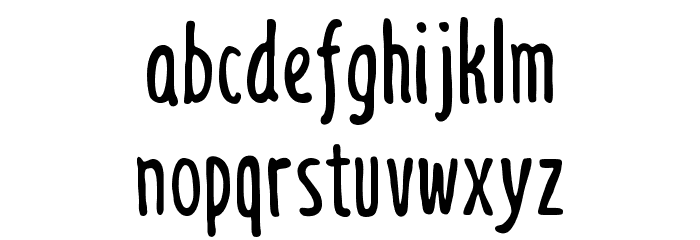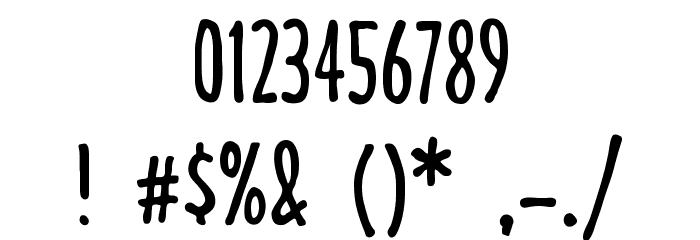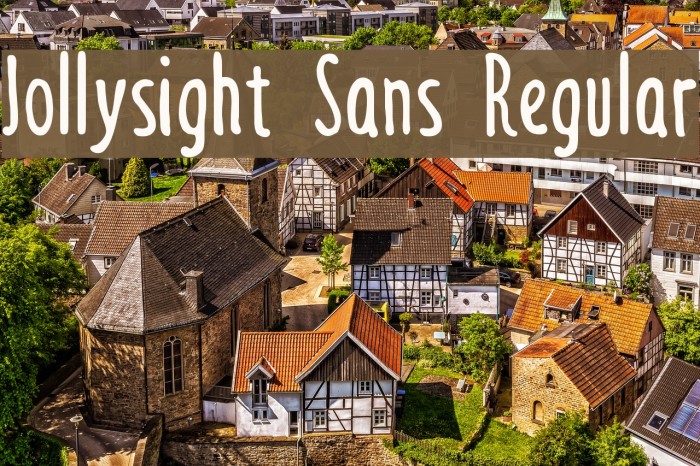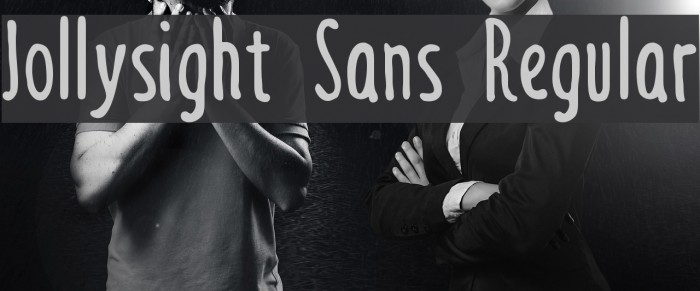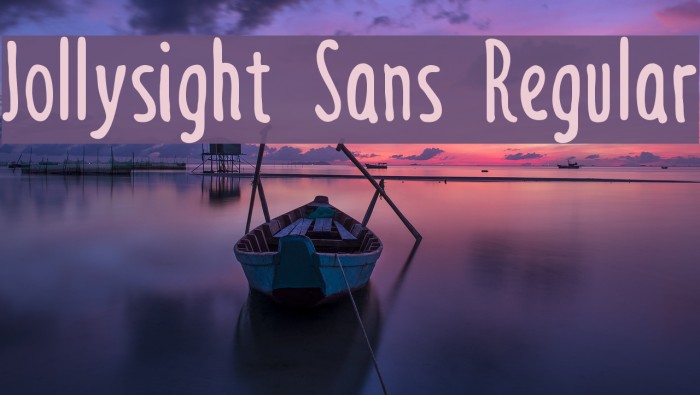
Jollysight Sans Regular Font
This font features a playful and informal style, characterized by its rounded and slightly irregular letterforms. The strokes are consistent in width, giving it a uniform appearance while maintaining a hand-drawn feel. The uppercase and lowercase letters are well-balanced, with a slight slant that adds to its casual charm. The numerals and special characters complement the alphabet with similar rounded edges and a friendly demeanor. This font is versatile, suitable for projects that require a touch of whimsy and approachability.
A playful, hand-drawn style with rounded, uniform strokes.
- Proposed Projects: Ideal for children's books, greeting cards, playful branding, and casual invitations.
- Overall Style: Casual
- Use Case: Headlines, Logos, Informal Text